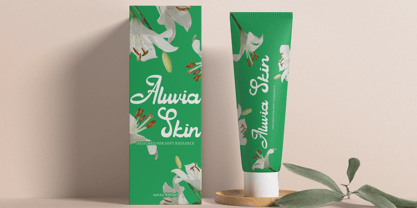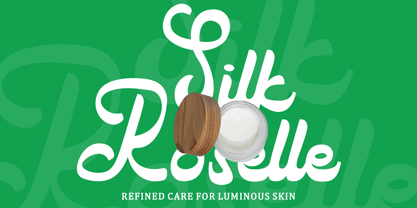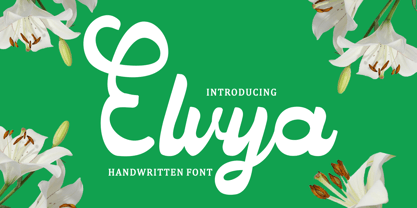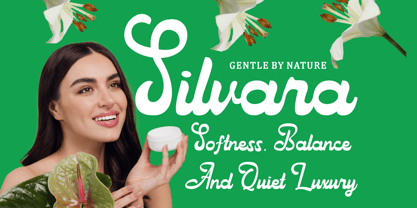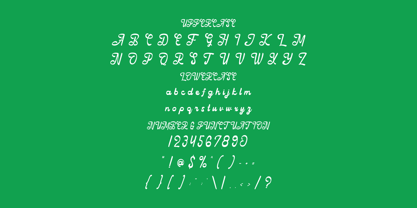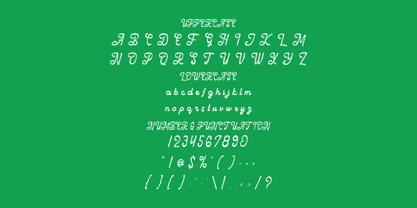
Elvya
by Shanaf
The Elvya Font Family was designed by Yesie Erma Yunita and published by Shanaf. Elvya contains 2 styles and family package options. More about this family
Elvya Handwritten Font features flowing script letterforms with smooth, continuous strokes. The characters show moderate contrast between thick and thin lines. Curves dominate the structure, creating graceful loops and soft terminals. Ascenders rise tall and elegant, while descenders sweep gently below the baseline. The stroke rhythm feels natural, as if written with steady hand pressure. Connections between letters remain fluid and cohesive. This gives words a seamless and harmonious appearance. The texture appears clean with subtle handwritten character. The style leans toward modern calligraphy with a refined tone. It feels feminine, elegant, and softly expressive without becoming decorative overload. The proportions support readability while preserving personality. Elvya Handwritten Font suits brands that value warmth and sophistication in their visual identity. This script style works especially well for logo design and brand naming. It fits beauty brands, skincare products, wellness studios, boutiques, and creative businesses. The elegant flow supports packaging, labels, posters, and advertising headlines. It also enhances invitations, greeting cards, quotes, book covers, and magazine titles. The handwritten character adds intimacy to product storytelling. Words feel personal and carefully crafted rather than mechanical. The font performs best in display sizes where its curves can shine. It brings charm to branding projects that require softness and refinement. Elvya Handwritten Font helps businesses create memorable identities with graceful script presence across digital and print materials.